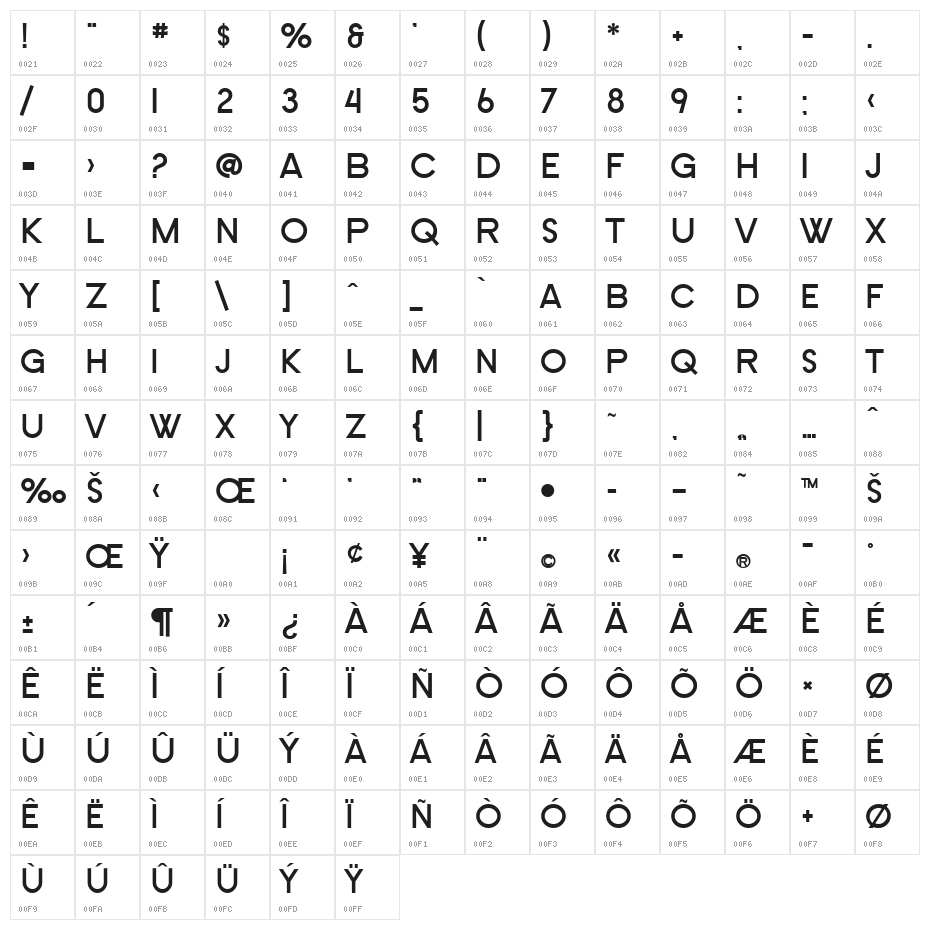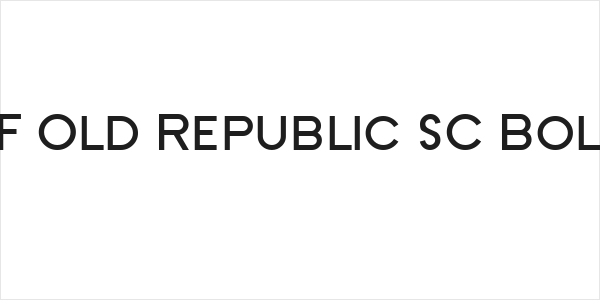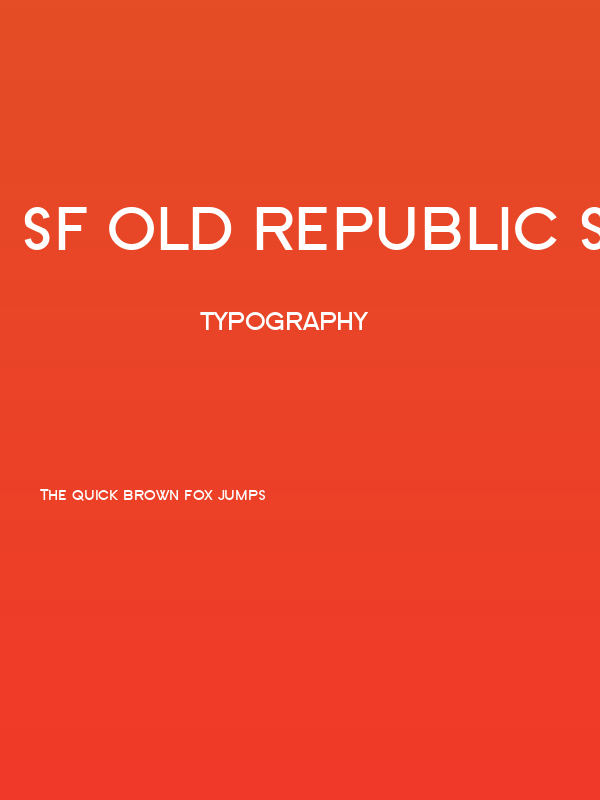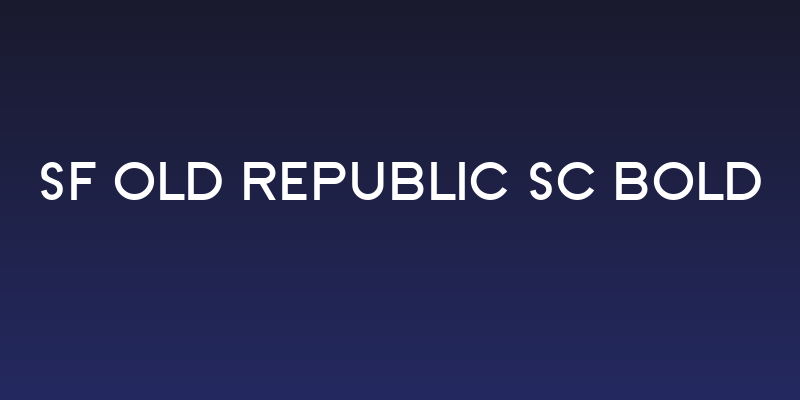
SF Old Republic SC Bold Font
SF Old Republic SC Bold Description
This font features a bold and clean design with a modern aesthetic. Its uppercase letters are uniform and geometric, providing a sense of stability and strength. The numerals are equally bold, maintaining the font's consistent weight throughout. The special characters are well-integrated, ensuring versatility in various applications. The overall appearance is sleek and professional, making it suitable for a wide range of design projects.
| Proposed Projects | Ideal for branding, headlines, posters, and digital media where a strong and modern impression is needed. |